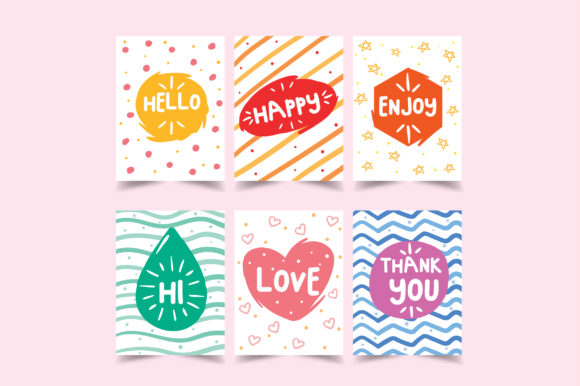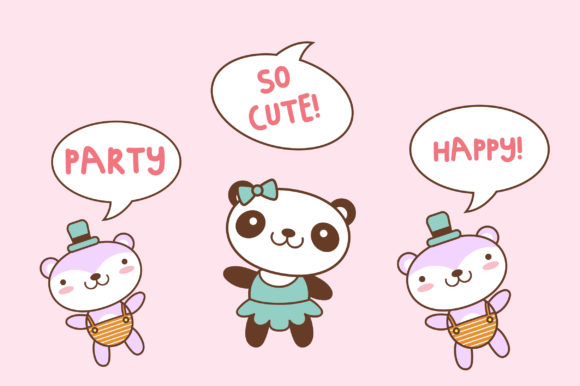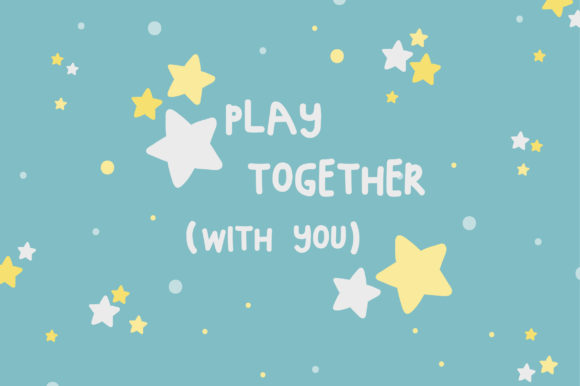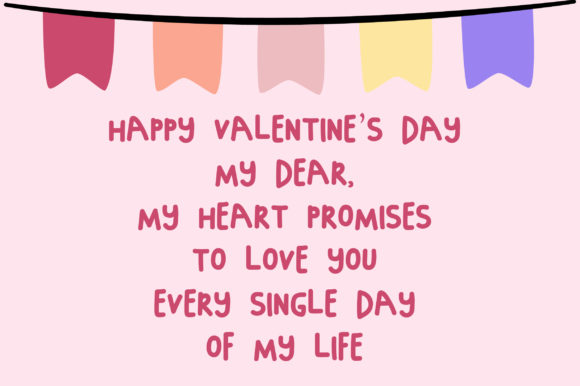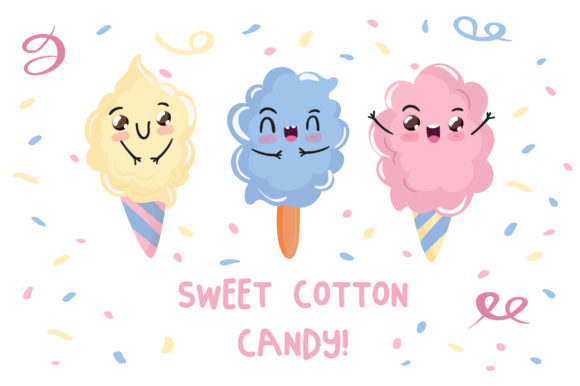
Introducing Diomira Font: A Sweet and Simple Hand-Drawn Delight
Are you on the hunt for a font that adds a touch of personality to your design projects? Look no further than Diomira Font, a sweet and simple hand-drawn font that’s perfect for a variety of applications. With its bold and curvy characters, Diomira Font is sure to make your designs stand out from the crowd.
What Makes Diomira Font So Special?
Diomira Font is a hand-drawn font that’s been crafted with love and care to bring a touch of whimsy to your designs. Its bold and curvy characters are perfect for creating eye-catching logos, branding materials, and more. The font’s simplicity and elegance make it versatile enough to be used in a variety of contexts, from digital designs to print materials.
Diomira Font is particularly well-suited for logos and branding materials. Its bold and curvy characters make it easy to create eye-catching and memorable logos that will help your brand stand out. The font’s simplicity also makes it easy to use in a variety of contexts, from business cards to billboards.
Turning Diomira Font into a Web Font
One of the best things about Diomira Font is that it can be easily turned into a web font. This means you can use it to add a touch of personality to your website or blog. Imagine being able to use this beautiful font to create eye-catching headings, titles, and more. With Diomira Font, the possibilities are endless.
Why Designers and Crafters Love Diomira Font
So, why do designers and crafters love Diomira Font so much? For starters, its simplicity and elegance make it easy to use in a variety of contexts. The font’s bold and curvy characters also add a touch of personality to any design, making it perfect for creating eye-catching logos, branding materials, and more. Additionally, Diomira Font is highly versatile, making it suitable for use in both digital and print designs.
Tips for Using Diomira Font
Here are a few tips for using Diomira Font in your designs:
- Use Diomira Font to create eye-catching logos and branding materials that will help your brand stand out.
- Use Diomira Font to create headings and titles that will add a touch of personality to your website or blog.
- Don’t be afraid to get creative and try new things – Diomira Font is a versatile font that can be used in a variety of contexts.
In conclusion, Diomira Font is a sweet and simple hand-drawn font that’s perfect for designers and crafters looking to add a touch of personality to their designs. With its bold and curvy characters, Diomira Font is sure to make your designs stand out from the crowd. Whether you’re creating logos, branding materials, or web designs, Diomira Font is a versatile and elegant font that’s sure to impress.